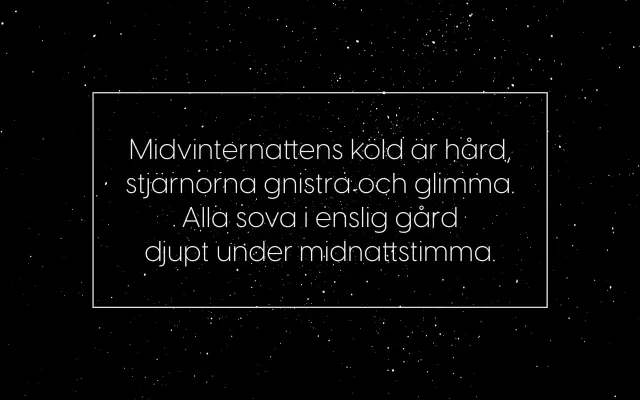
A geometric sans with sharp corners and rounded forms, drawing on Arctic imagery and carrying subtle humanist warmth across eight weights with Cyrillic and Vietnamese support.
Visby CF pairs hard geometric construction with softened, rounded details and oblique styles rather than true italics, spanning eight weights from Thin to Heavy. The lowercase reads as approachable while the uppercase carries a more authoritative tone, making the family versatile across branding and editorial contexts. Language coverage is broad, encompassing Latin Extended, Vietnamese and Cyrillic scripts including Belarusian, Bulgarian, Russian, Ukrainian and Serbian.
Visby CF is a geometric sans with hard lines, sharp corners and rounded forms, explicitly described as geometric in its construction with subtle humanist warmth added through lowercase forms.